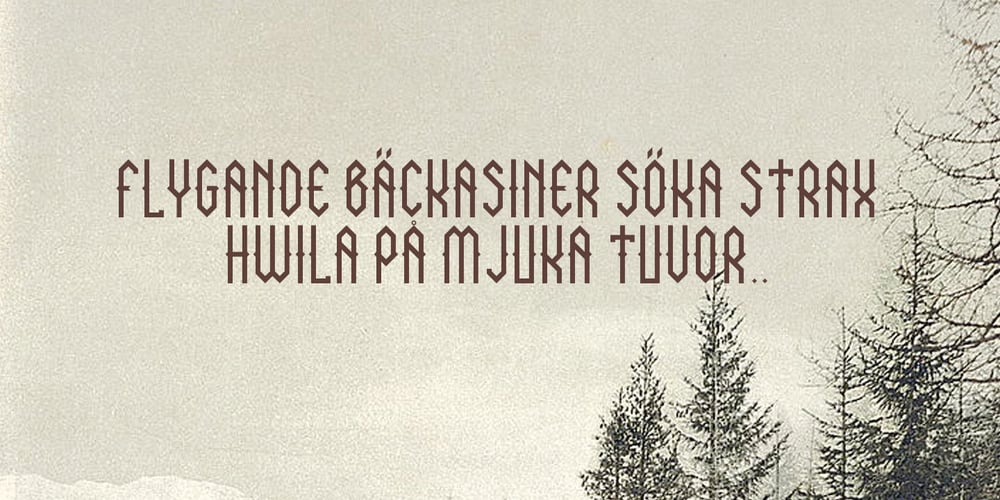
NORTH 06 Font Family was designed by David Alexander Slaager and published by Fonts of Chaos. NORTH 06 contains 1 styles and family package options. A true north font of 152 characters, inspired by the black metal culture but more readable. UPPERCASE lowercase Numerals Punctuation 152 characters